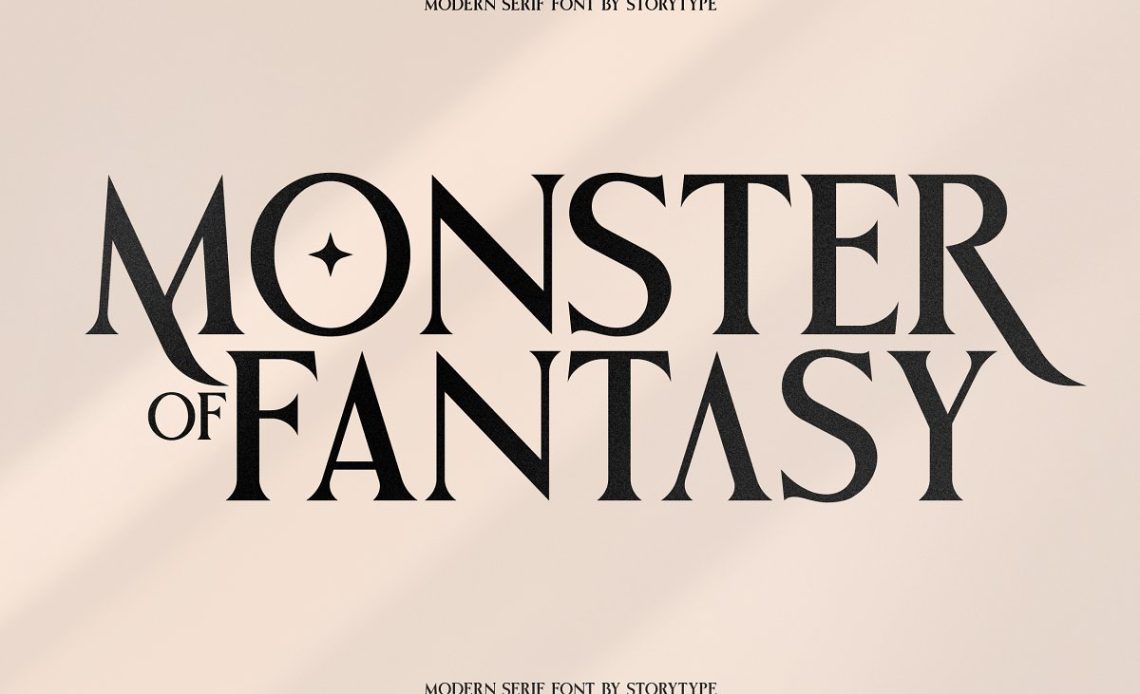
Introducing the Monster Of Fantasy Modern Serif Font, the latest addition to our collection of the best fonts for flat design. Created by Rena Marliana and part of the mega bundle from Storytype Studio, this font is a must-have for any designer looking to elevate their work.
With over 100 modern and minimalist serif fonts in the bundle, Monster Of Fantasy stands out with its unique style and modern look. This serif font is perfect for creating an elegant and luxurious logo, book or movie title design, fashion brand, magazine, clothes, lettering, quotes, and so much more. The possibilities are endless.